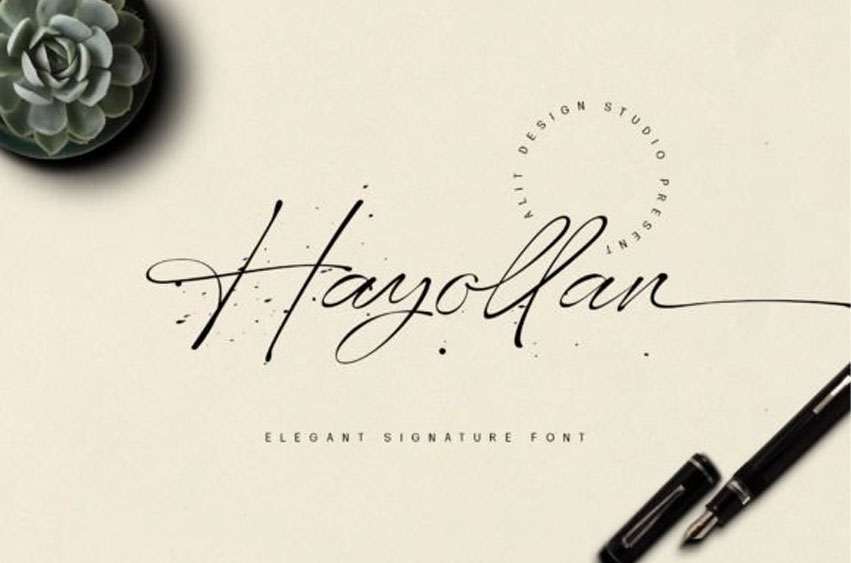
Hayollan Font
Hayollan Font is a stylish and incredibly elegant handwritten script font. It is defined by smooth curves and is perfect for fashion branding or editorial designs. Use this font for your designs and explore its endless possibilities.